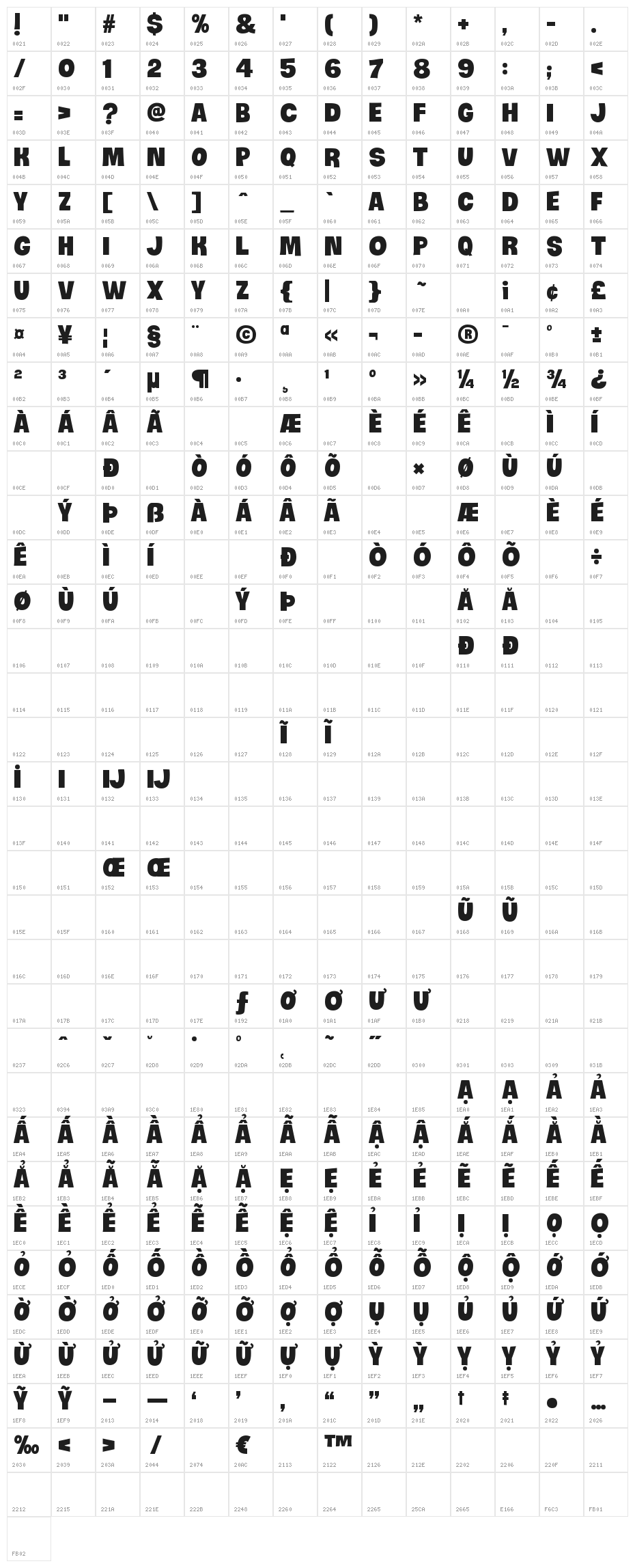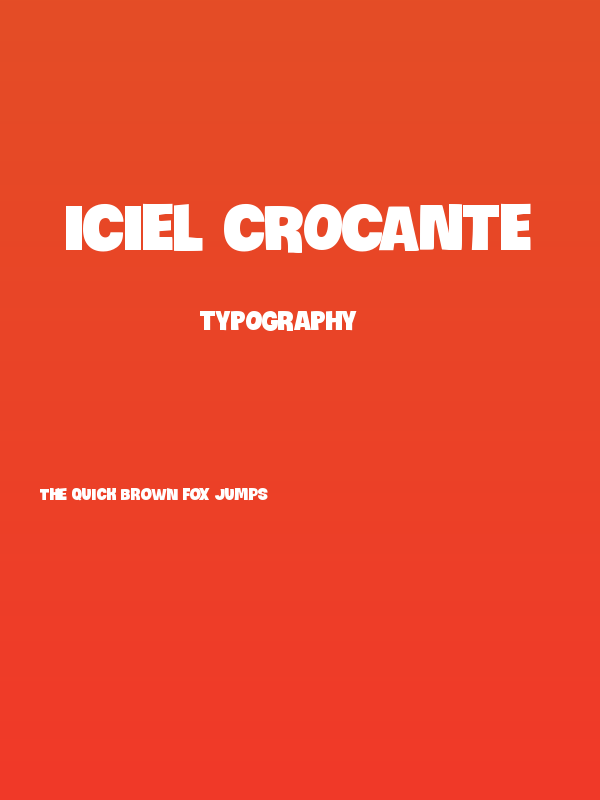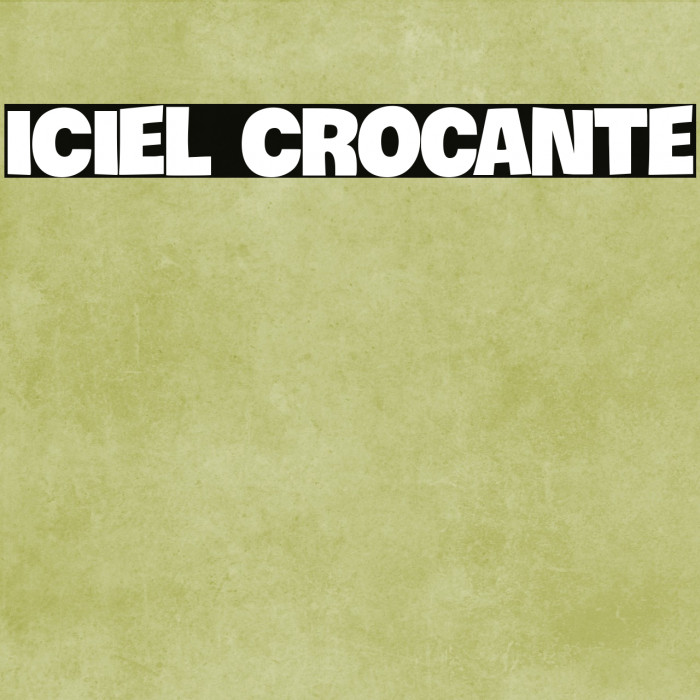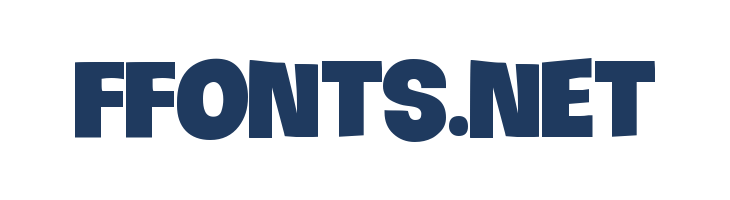
iCiel Crocante Font
iCiel Crocante Description
This font features bold, thick strokes with a playful and robust appearance. The characters are heavily weighted, giving them a strong presence on the page. The style is reminiscent of vintage poster fonts, with a slight curvature in some letters that adds a touch of whimsy. The overall design is consistent across uppercase, lowercase, and numerals, maintaining a uniform look. The special characters are equally bold, ensuring they stand out. This font is ideal for making a statement, with its eye-catching and impactful design.
| Overall Style | Vintage |
| Proposed Projects | Great for posters, headlines, branding, and any project needing a strong, playful typeface. |